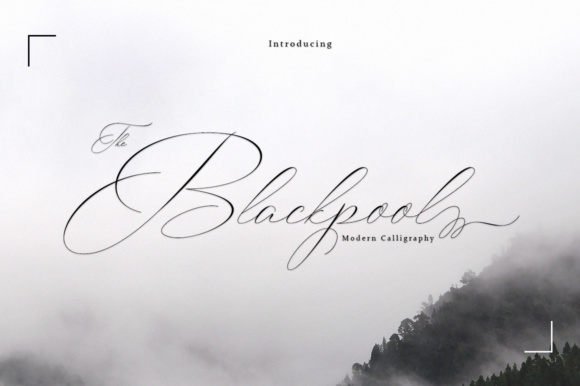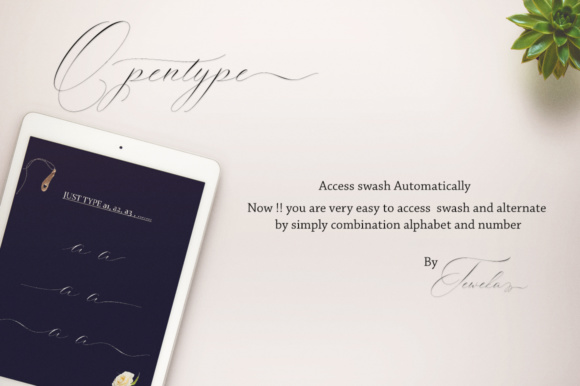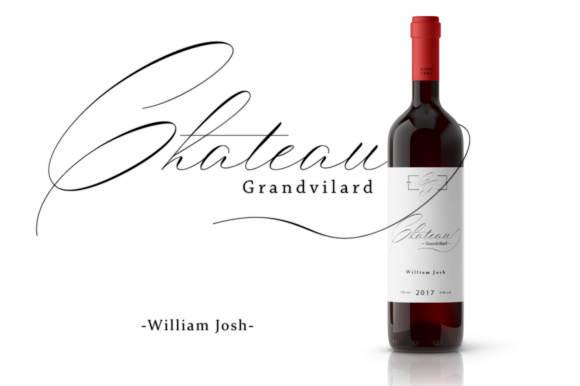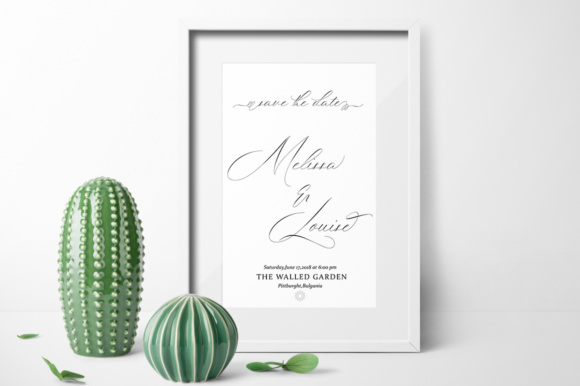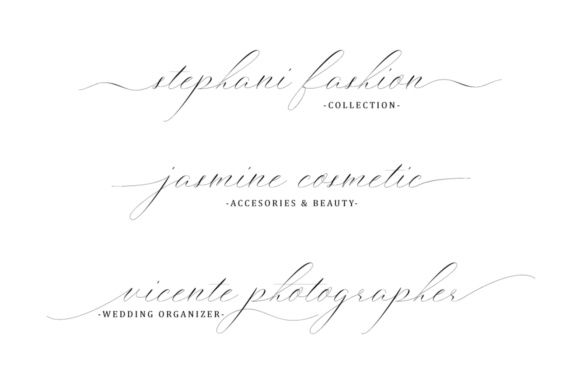
About Blackpool Font
The Blackpool is a modern script font. Its beautiful swashes will add an elegant look to your designs.
The Blackpool will make your designs instantly professional and jaw-dropping! Be a perfect professional in a minute and start creating modern designs like ads, sales, logos, branding, posters, social media text overlays today!